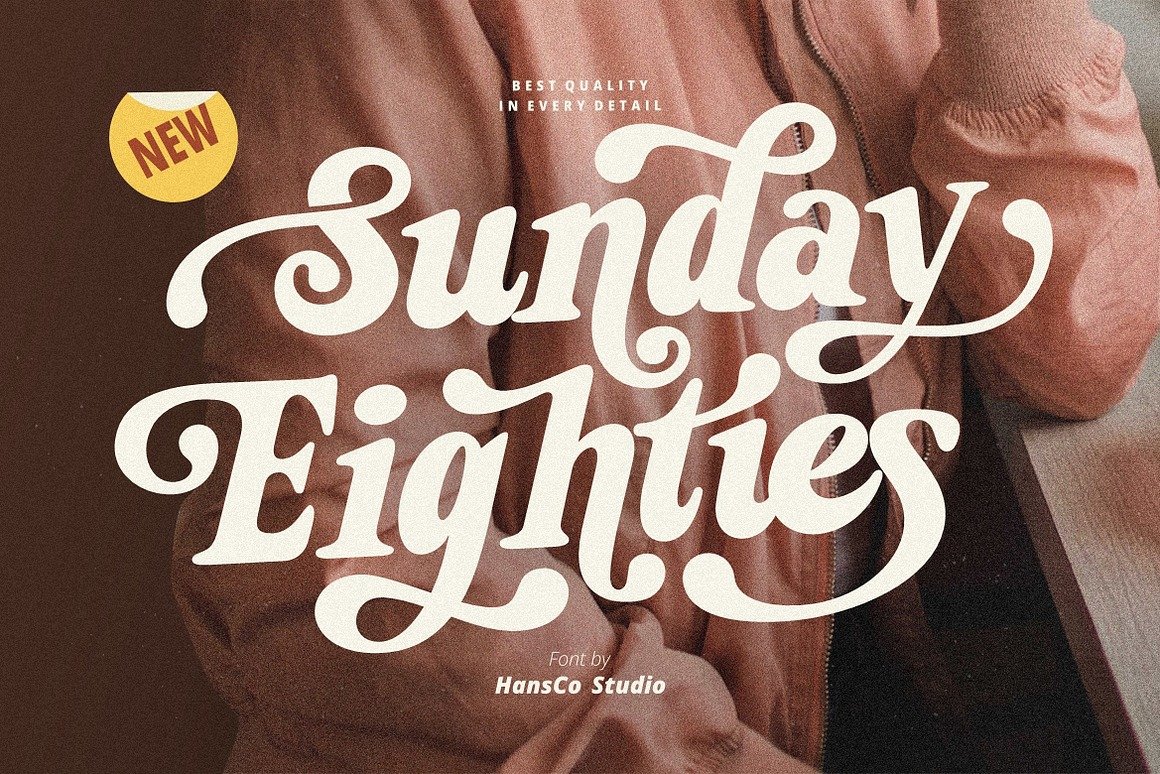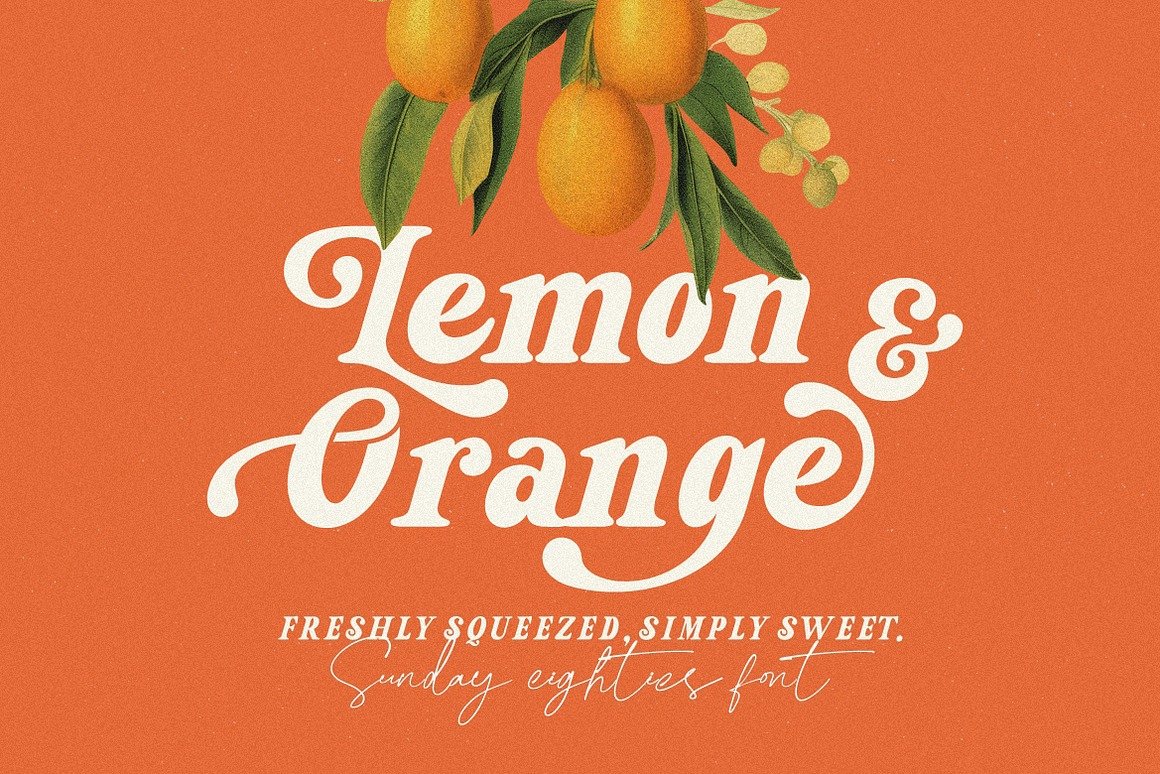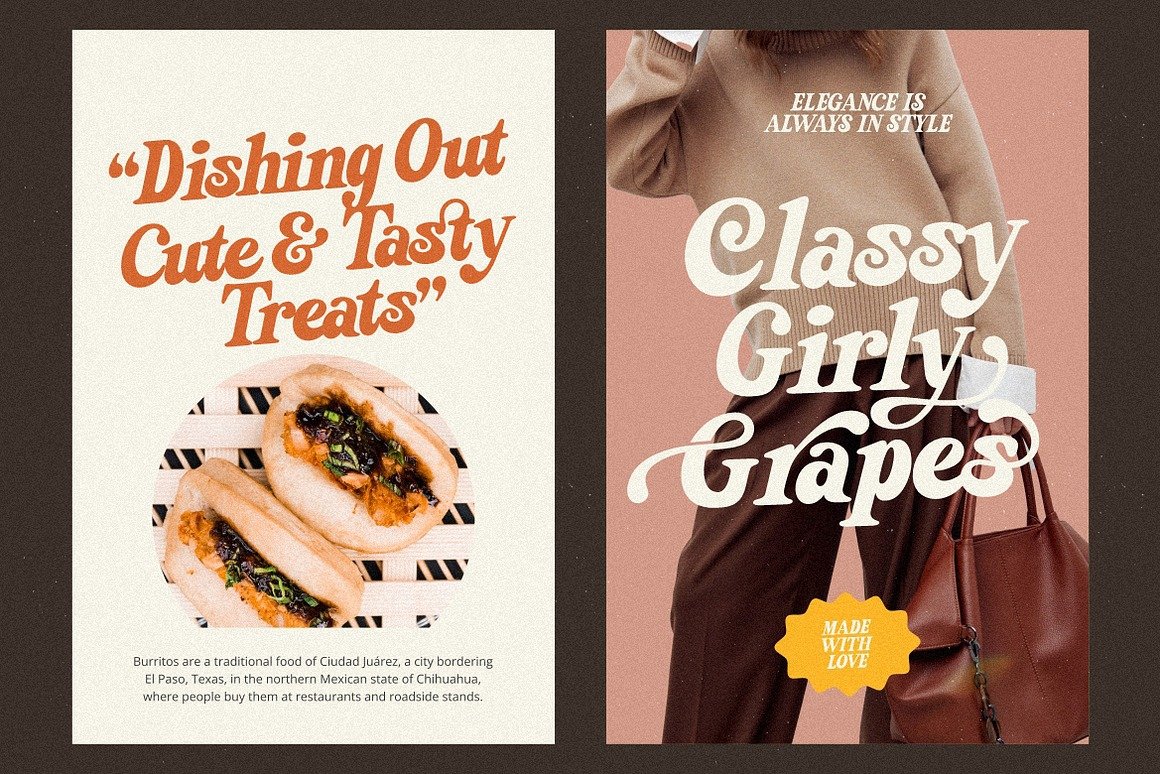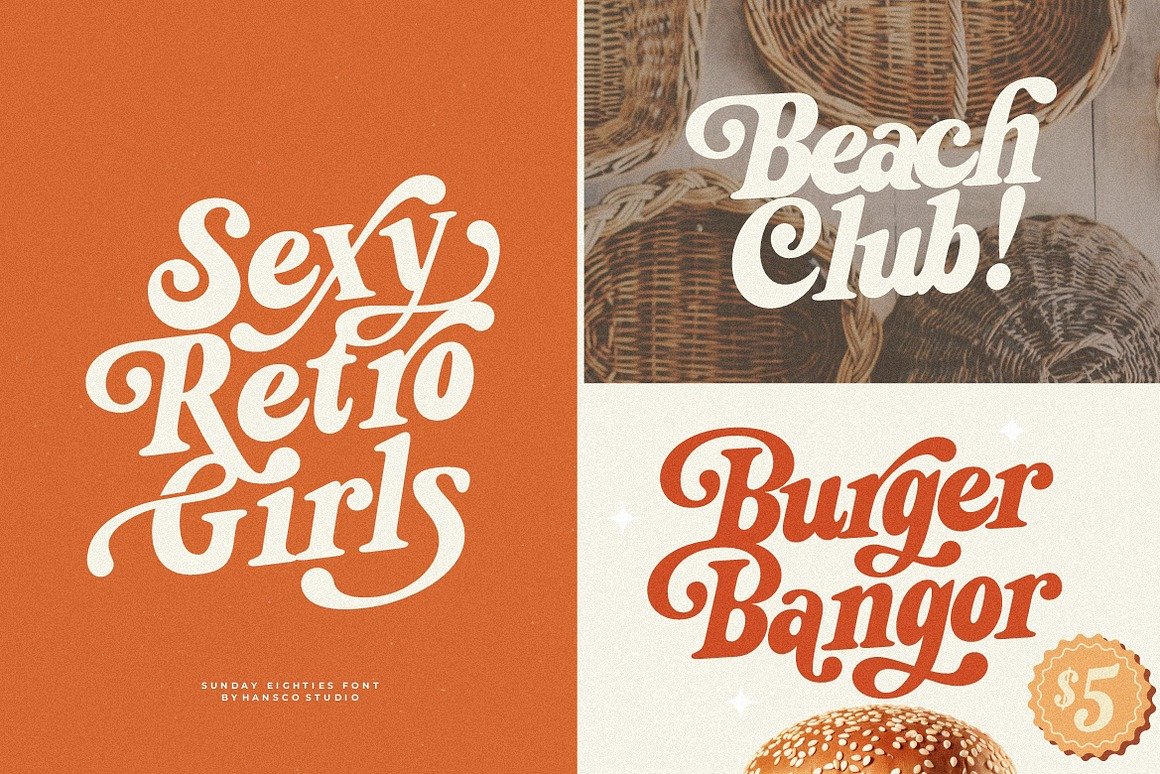
Sunday Eighties Font
1. Introduction: A Typeface Echoing Nostalgia
Fonts can be more than just tools for readability—they’re emotional triggers. Sunday Eighties Font  (designer Burhan Afif), is one such typeface: a bold, vintage serif that revives the confident spirit of the 1980s while remaining crystal-clear and contemporary.
2. Aesthetic Roots: Where the Eighties Meet Today
Sunday Eighties captures the charm of an era marked by expressive, confident typography: think early movie posters, video games, neon signage. Its serif base gives it a familiar, grounded presence—while its bold weight ensures the design stands out in modern applications.